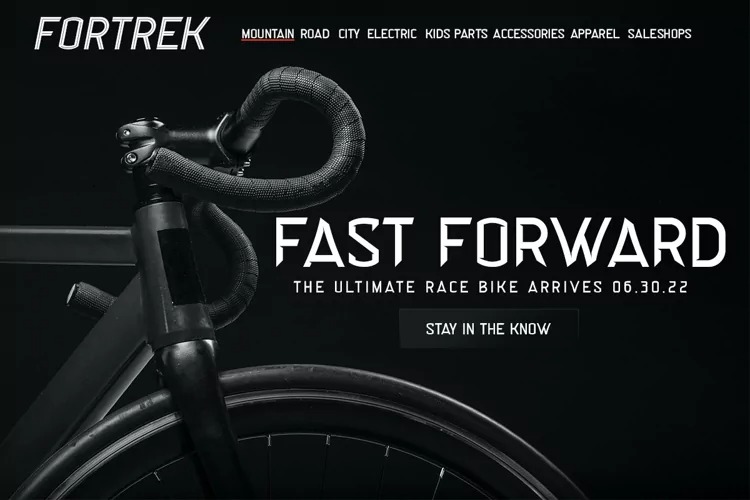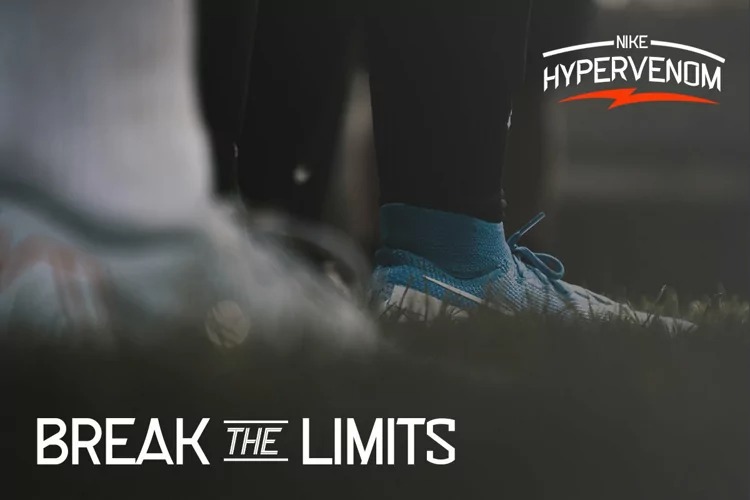
Curbstone Display Font
This is a sport display typeface crafted & designed by Mevricks Studio. The font is ready to be used for your racing sports or automotive related projects. Built to be perfect for headlines, jerseys, logos, branding, posters, packaging, advertising, and much more.